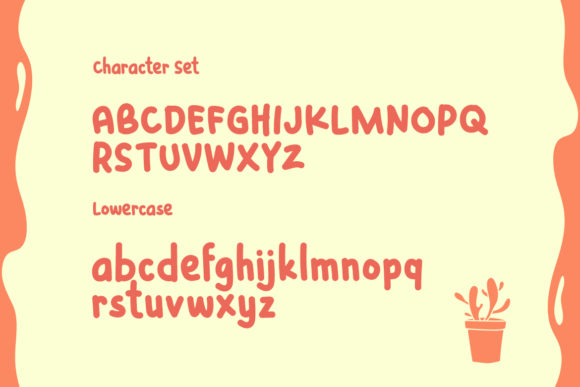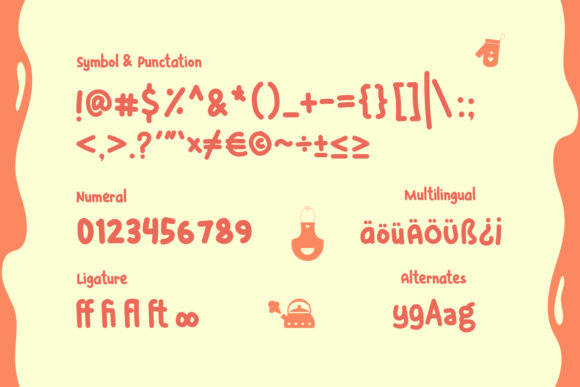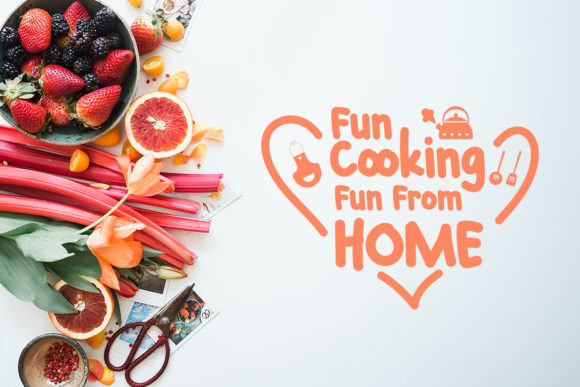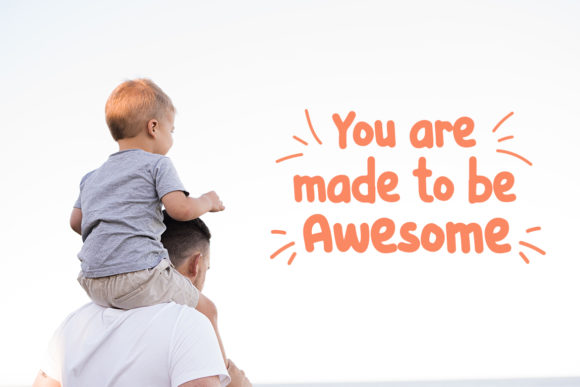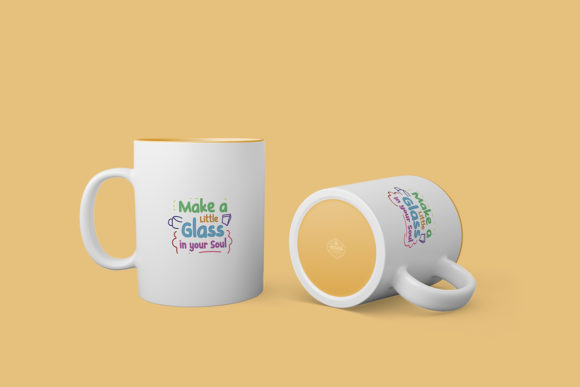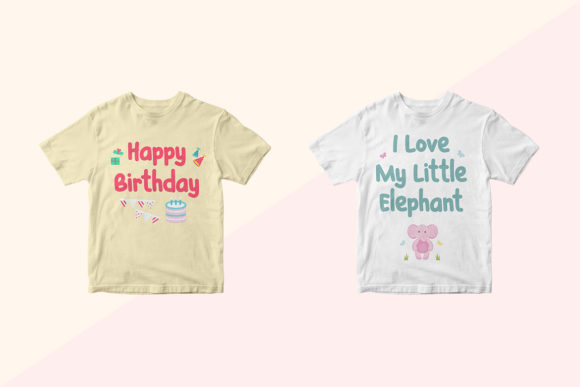
Introduction to My Home Font
Have you ever stumbled upon a design project that sparks your creativity and makes you feel like a kid again? For me, it was a children’s book cover that I was working on. I wanted to convey a sense of warmth and playfulness, and that’s when I discovered the perfect font – My Home Font.
This fun and simple display font is a treasure trove for designers looking to add a touch of whimsy to their creative projects. With its cute and friendly design, My Home Font is perfect for children-themed designs, especially when paired with bright colors and a transparent background. Whether you’re working on a children’s book, a nursery decor project, or a playful advertisement, this font is sure to bring a smile to your face.
Key Features of My Home Font
- High-quality design resource with a unique, creative touch, perfect for various projects
- Features a transparent background, allowing for easy integration into any design
- Includes a wide range of glyphs, making it an ideal choice for various creative projects
- Designed to be a versatile and modern design resource, suitable for various design applications
- Can be used as a design element in logos, branding materials, and other creative projects
Honest Review: My Home Font
I recently came across the “My Home Font” and was excited to try it out for a creative project. After downloading it, I was pleased to find a high-quality design resource that’s perfect for various design tasks.
- ✨ It comes with a transparent background, allowing for seamless integration into any design.
- ✨ The font is highly customizable, making it perfect for various design projects.
- ⚠️ The font may not be ideal for large-scale projects due to its relatively small character set.
Overall, I’m impressed with the “My Home Font”. While it may have some limitations, it’s a great design resource for smaller projects or personal use. I appreciate the effort put into creating a high-quality, free download that’s perfect for designers.
Tips for Getting the Most Out of My Home Font
Use My Home Font for your creative project to add a touch of elegance. You can also use it for a design resource, such as a brochure or flyer, to give it a professional look. Make sure to use the font with a transparent background to achieve the best results.
My Home Font is perfect for various use cases, including wedding invitations, home decor design, and interior design projects. It’s also great for creating a high-quality design that will stand out.